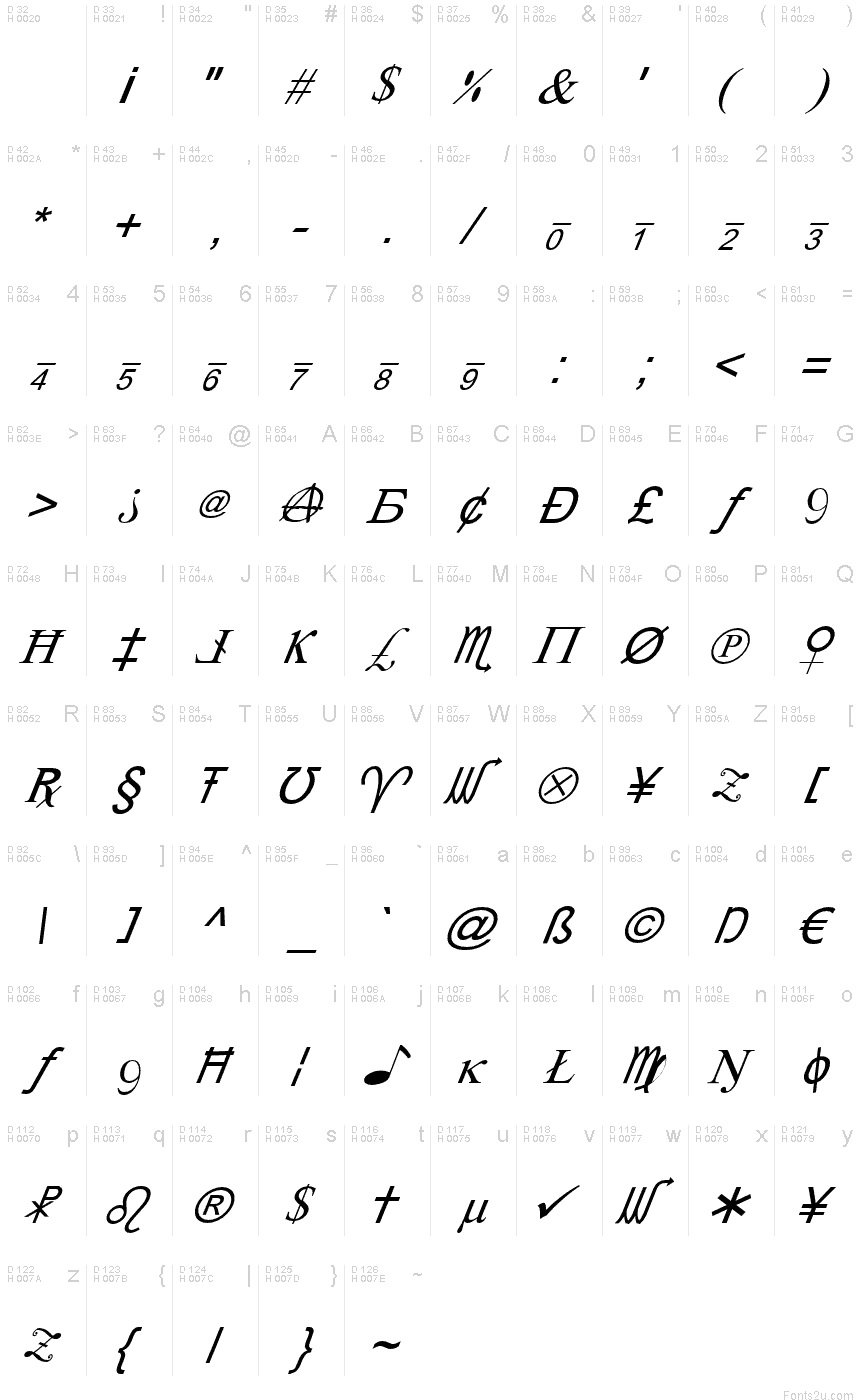
X-Cryption Italic, designed in 2003 by Iconian Fonts, is a free cipher-inspired decorative display font with an emphatic forward slant. Familiar letter shapes are recut with crossed strokes, open loops, sharp serifs, and fragments that resemble mathematical or currency symbols, giving the alphabet a deliberately encoded appearance.
Its codebreaking and espionage character suits game interfaces, thriller posters, and science-fiction publishing, where the lettering can function as part of the puzzle or fictional technology. It will appeal especially to game studios and publishers creating coded, conspiratorial worlds.